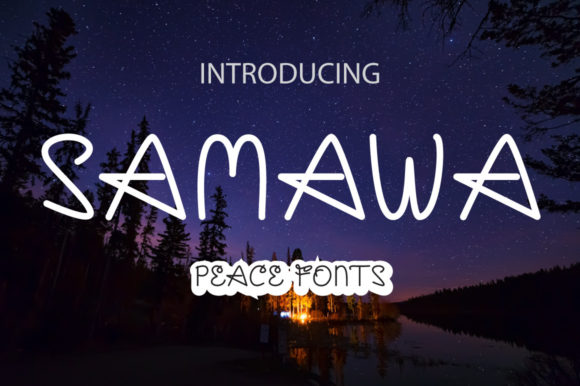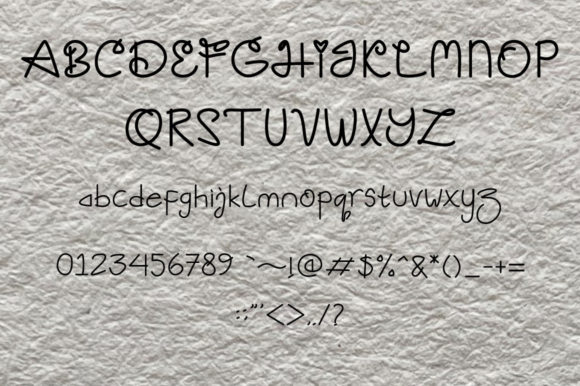
Samawa Font
About Samawa Font
Samawa is a unique handwritten script font that embodies the concepts of world peace and tranquility. Script fonts like Samawa are known for their fluidity and elegance, often mimicking the style of handwritten calligraphy. This makes them a popular choice for a variety of projects that require a touch of sophistication and personalization.
The softness of Samawa makes it a great fit for any design idea. It can add a fun and romantic touch to your projects, making them more appealing and engaging. Whether you’re working on t-shirts, car decorations, award certificates, cup labels, or any other project, Samawa can add a beautiful script taste to your designs.
In the world of script fonts, Samawa stands out for its unique style. It manages to strike a balance between being soft and handwritten, making it a great choice for projects that require a delicate touch. Despite its handwritten nature, Samawa is robust enough to be used in a variety of applications, from small labels to large signage.
In addition to its aesthetic appeal, Samawa is also practical. It’s easy to read, which is an important consideration when choosing a script font. Despite its beautiful, handwritten style, Samawa remains legible even at smaller sizes, making it a reliable choice for a wide range of applications.
In conclusion, Samawa is more than just a soft handwritten script font. It’s a versatile design tool that can bring a unique, personal touch to your projects. Whether you’re a seasoned designer or just starting out, Samawa is a script font worth considering. Its combination of style, versatility, and legibility make it a standout choice in the world of script fonts. So, if you’re looking for a script font that can add a beautiful script taste to your projects, Samawa might just be the perfect fit. It is suitable for all your works such as t-shirts, banners, shop names, movie titles, business cards, invitation cards, and more.